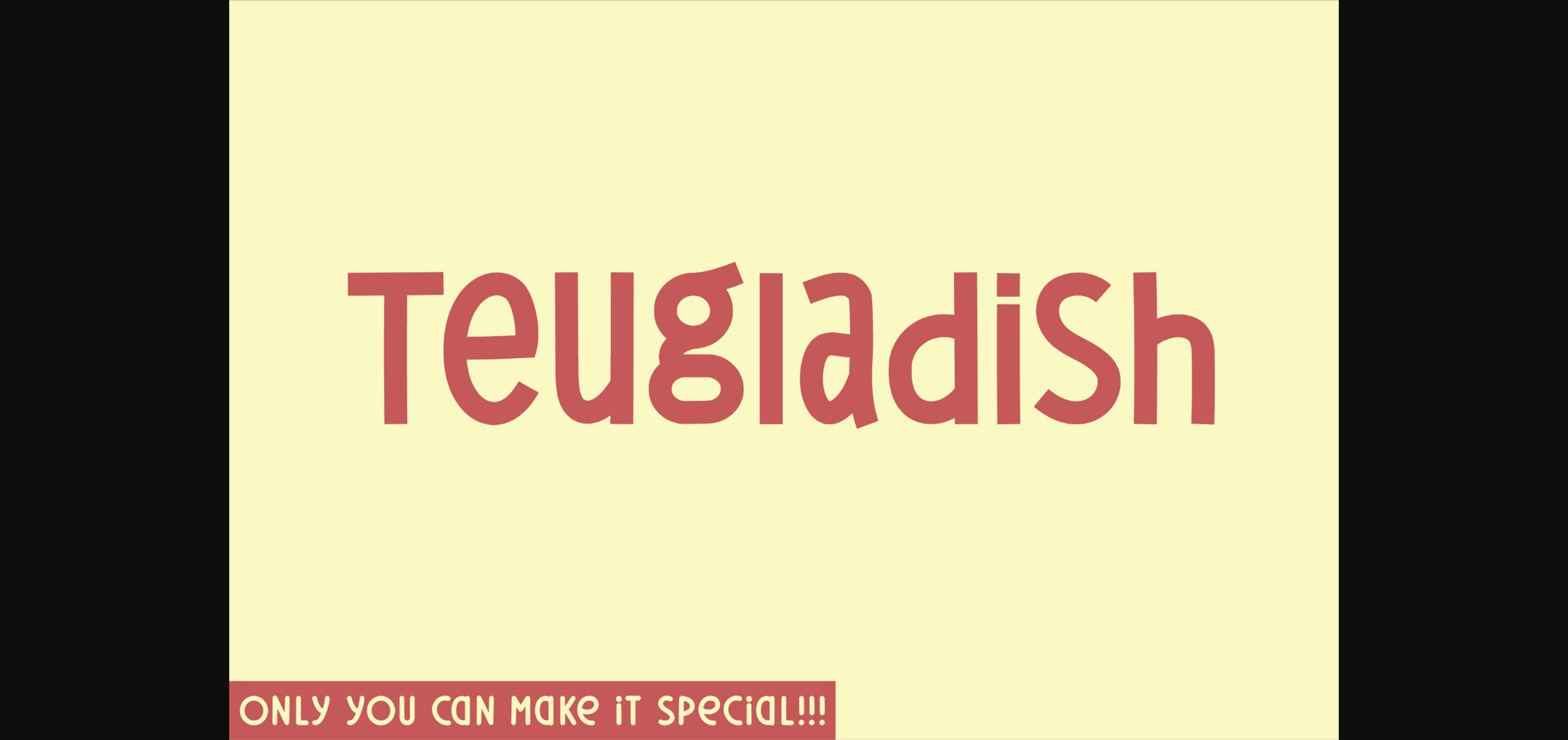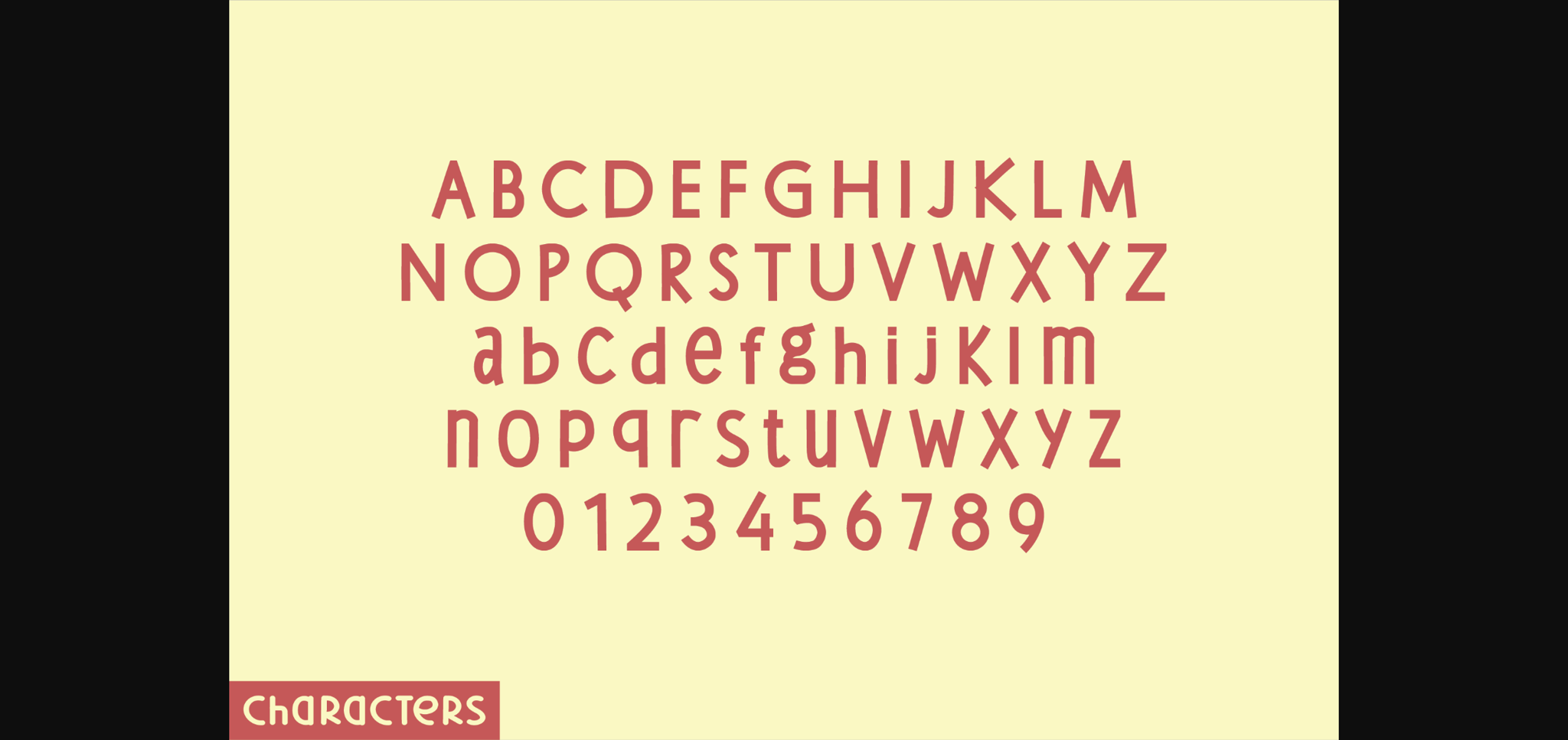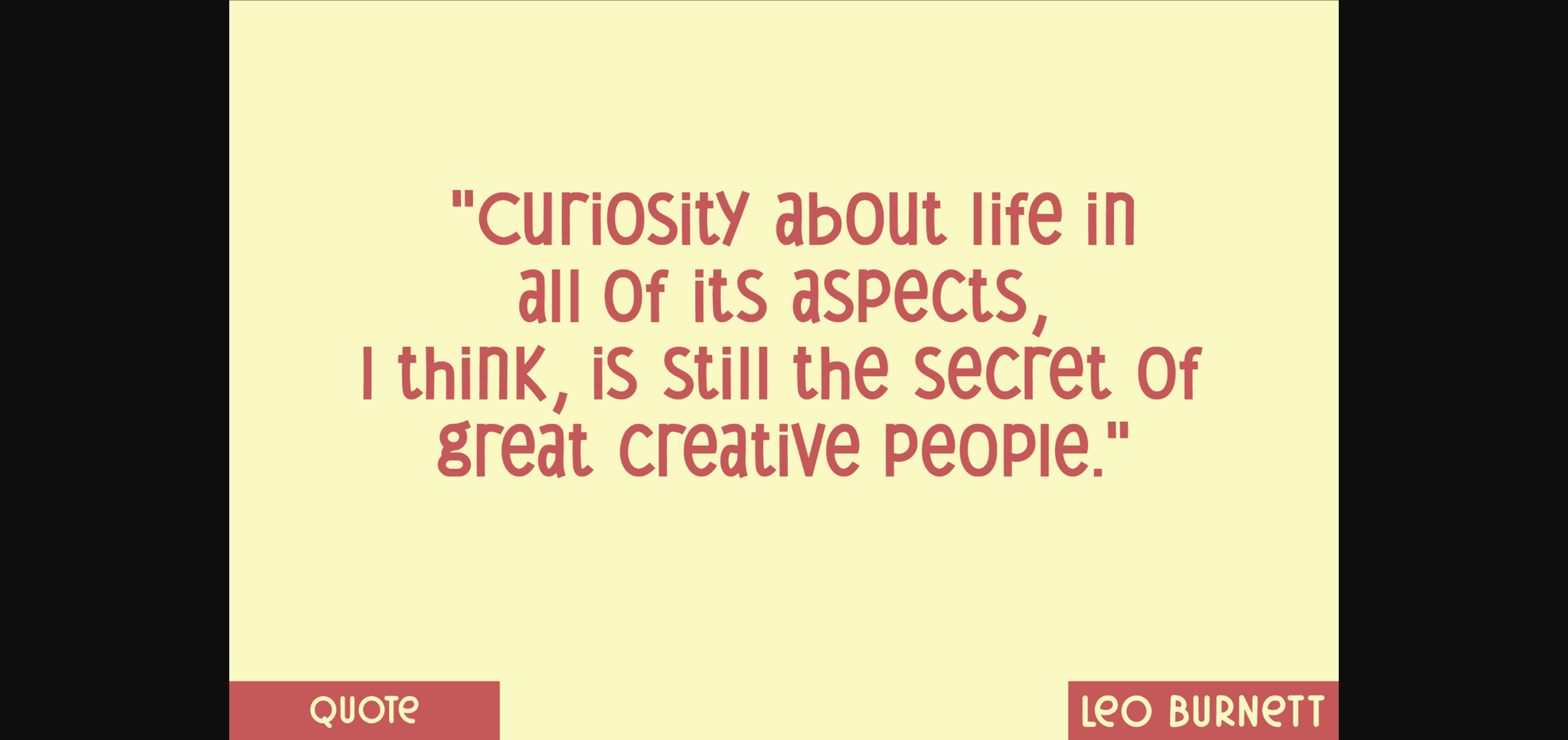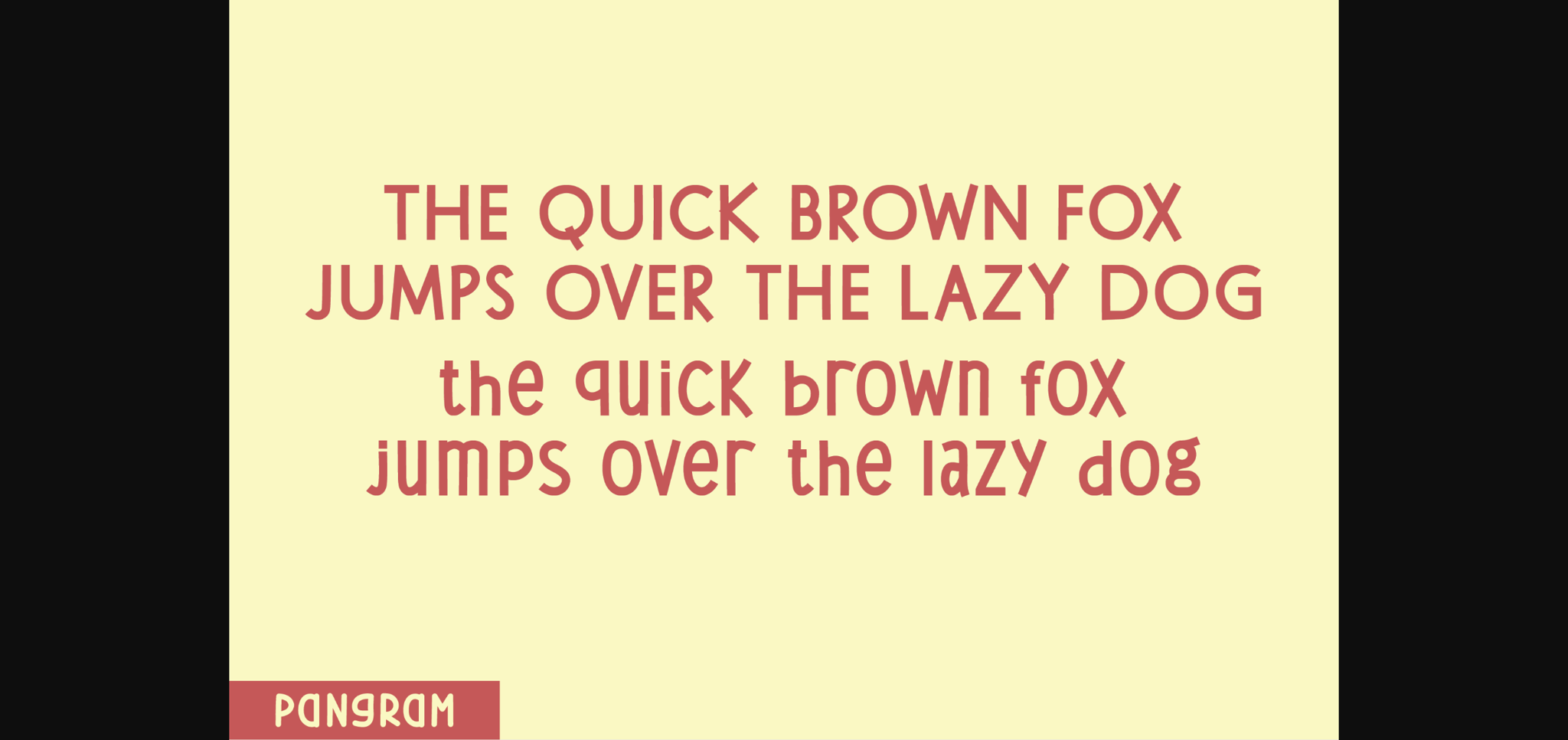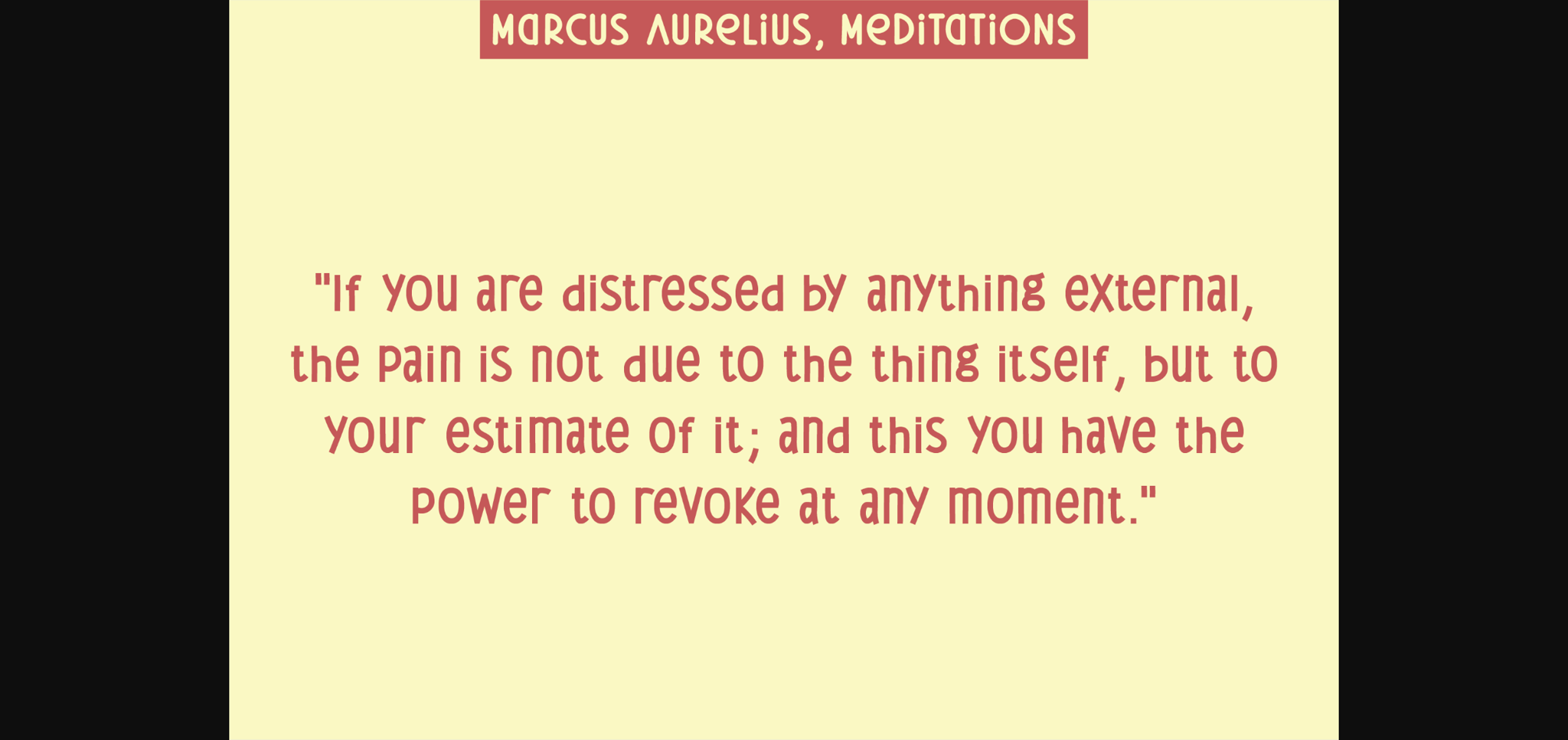
About Teugladish Font
Introducing Teugladish, an innovative display font that breaks the mold with its unique sans serif style. Each letter in this dynamic typeface reveals it in its one-of-a-kind structure, combining conventional shapes with a hard-hitting design to leave a lasting impression. Teugladish gleams with character and can adeptly convey those powerful, audacious and unique messages within your designs. The bold reinvention of lettering embodied in this font ensures that your text won’t just be read, it will be felt.